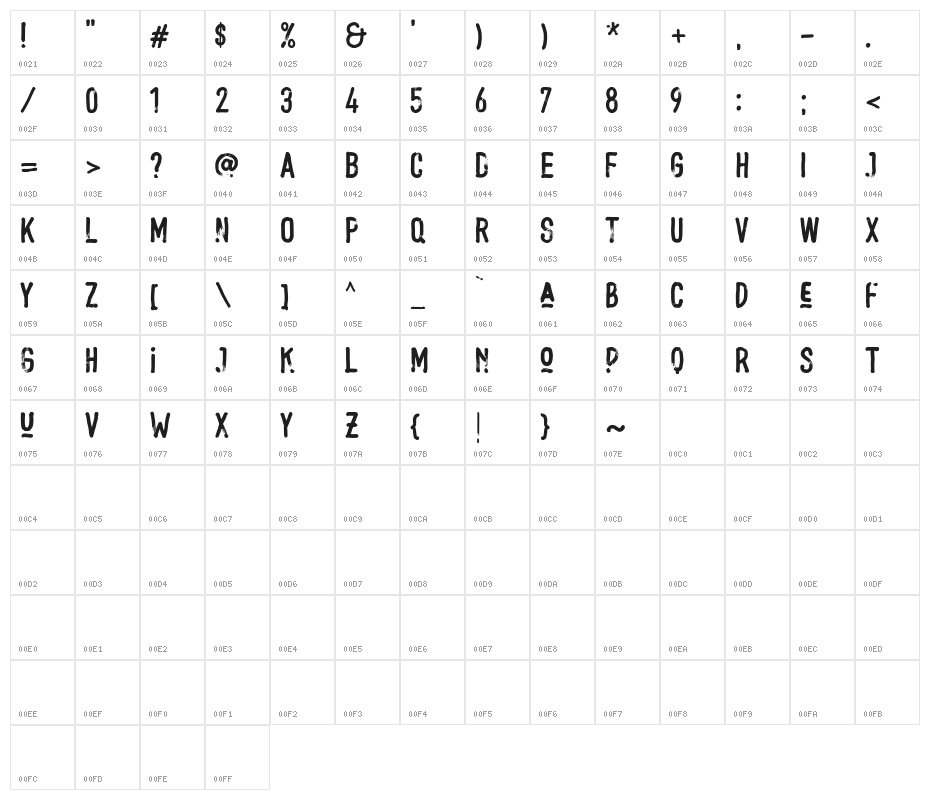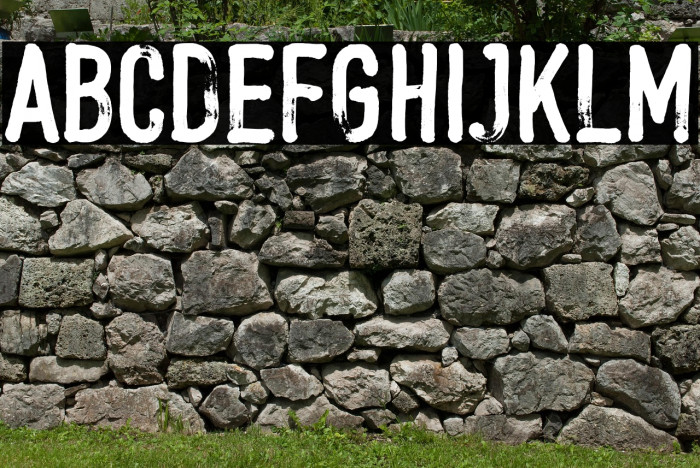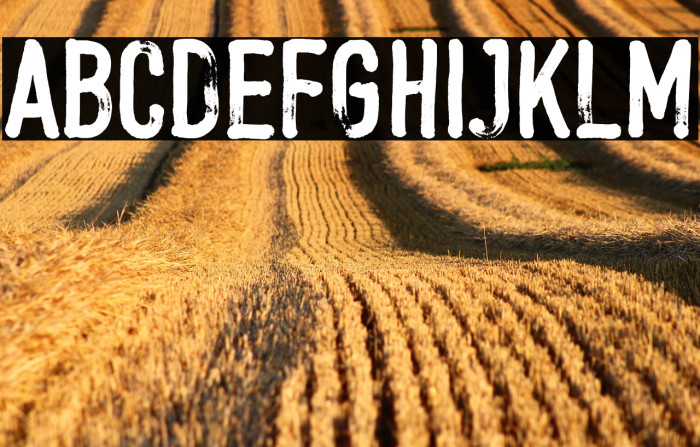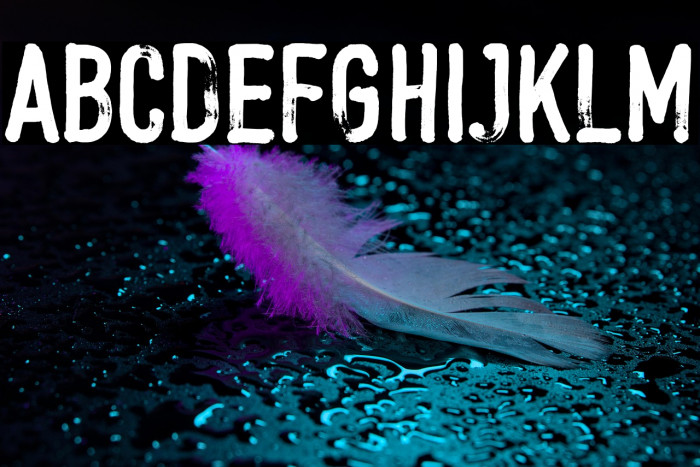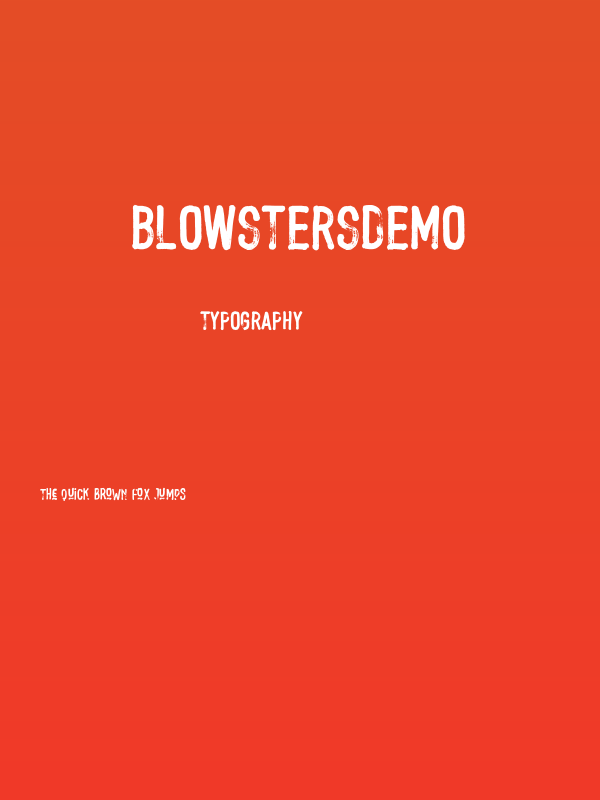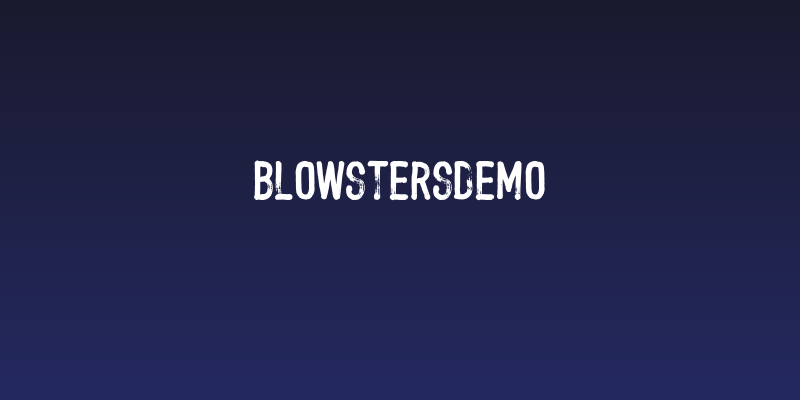
BlowstersDemo Font
BlowstersDemo Description
This font exhibits a bold, distressed style with a hand-painted appearance. The characters have a rough texture, giving them an edgy and artistic feel. The uppercase and lowercase letters maintain a consistent width, while the numbers and special characters follow the same rugged aesthetic. The font's unique brush-like strokes create a dynamic and energetic look, making it suitable for creative and expressive designs. The irregularities in the strokes add to its charm, providing a sense of movement and spontaneity.
| Overall Style | Artistic, Edgy, Expressive |
| Proposed Projects | Ideal for posters, album covers, street art designs, and creative branding projects. |